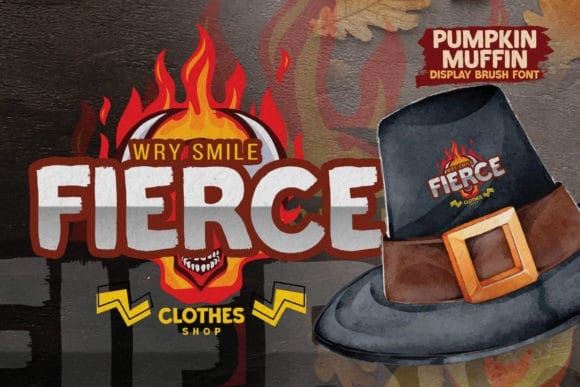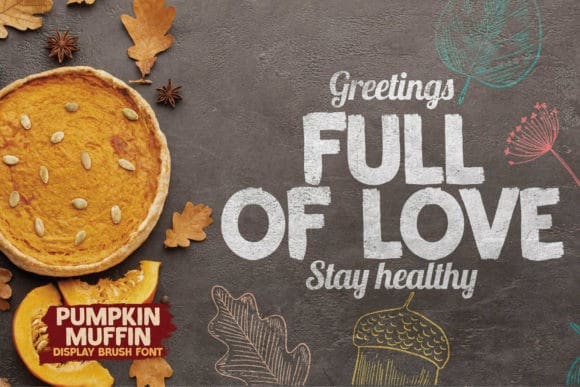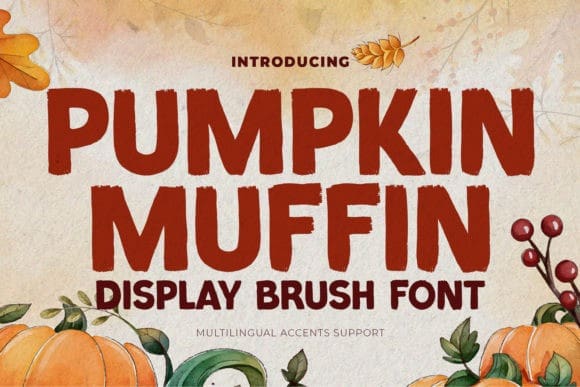
Pumpkin Muffin Font
Pumpkin Muffin Font is a cute and colorful display font. Add this chunky lettered font to your designs and notice how it makes them come alive!